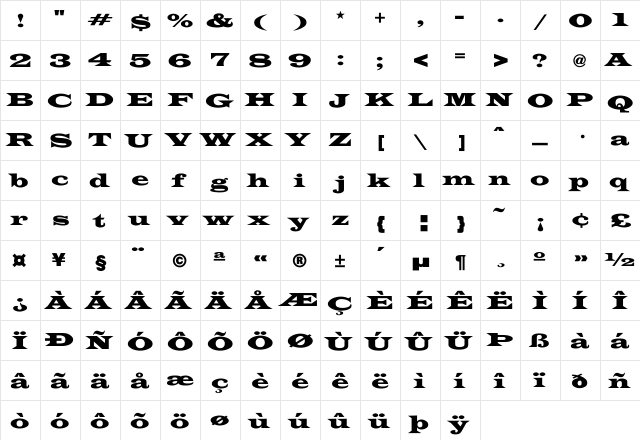
Thespian-Wide Regular
Design Context for Thespian-Wide Typeface
Thespian-Wide offers clean, dependable letterforms without strong stylistic allegiance, making it a practical choice for designers who need flexibility.
Pro Tip: Use Thespian-Wide in both headline and body roles to test its range before committing to a single application.